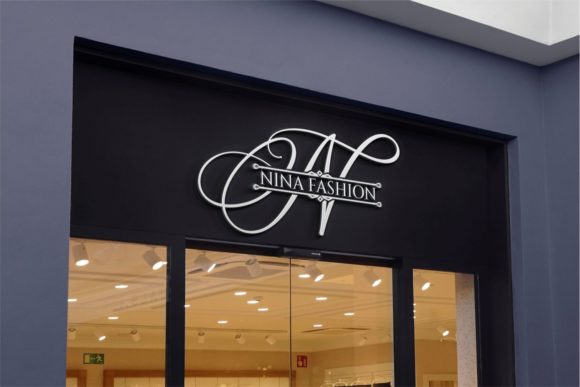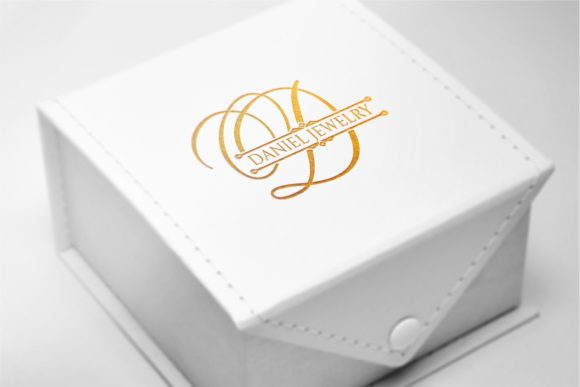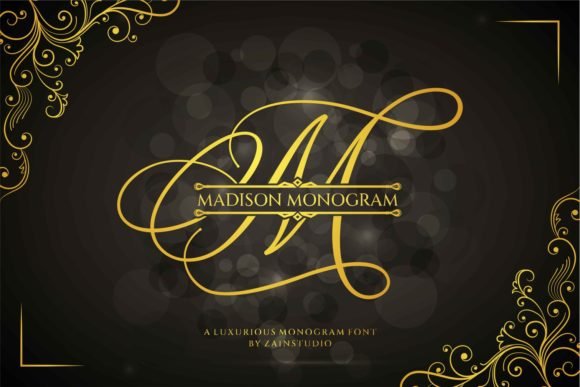
Madison Monogram Calligraphy Display Font
Add timeless elegance to your designs with Madison, a beautifully crafted calligraphy font featuring classic monogram styling. This refined typeface combines the grace of traditional calligraphy with the distinctive character of monogram letterforms, creating sophisticated typography perfect for projects that demand elegance and distinction.
Font Characteristics:
- Classic Calligraphy Style: Flowing, graceful letterforms with artistic flourishes
- Monogram Design: Each letter crafted with the distinctive quality of monogram initials
- Elegant Proportions: Carefully balanced characters with refined details
- Versatile Weight: Perfect for both display and smaller applications
- Monograms & Initials: Create elegant personal or brand monograms
- Wedding Stationery: Invitations, save-the-dates, and place cards
- Luxury Branding: Sophisticated logos for high-end brands
- Personalized Gifts: Custom monogrammed items and accessories
- Formal Invitations: Elegant designs for galas and special events
- Calligraphy Art: Beautiful lettering for prints and wall art
- Product Packaging: Add refined typography to luxury products
- Heraldic Designs: Classic lettering for crests and emblems
Madison’s classic monogram styling makes it particularly suited for projects where initials take center stage—from monogrammed towels and stationery to logo design and personal branding. The calligraphy quality adds handcrafted warmth while maintaining professional polish.
Key Features of Madison Font:
- Classic calligraphy style with monogram character
- Elegant, refined letterforms with artistic flourishes
- Perfect for sophisticated, timeless designs
Madison Monogram is a beautiful combination of timeless elegance and authentic calligraphy in one display font. Get inspired by its unique look and create gorgeous stationery, romantic greeting cards and more!